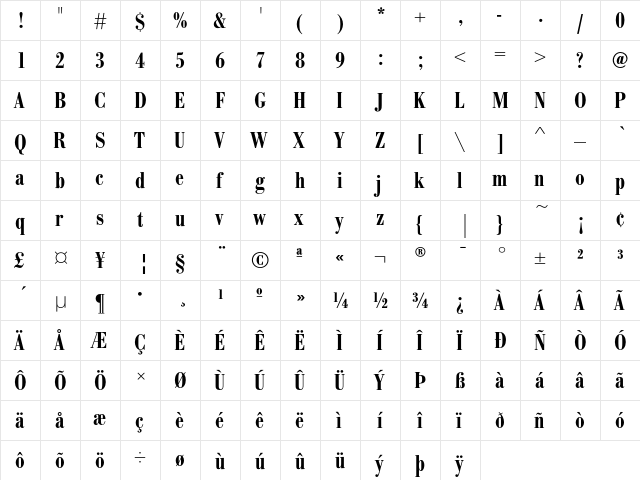
BodoniEF DemiBoldCond Font Preview
BodoniEF DemiBoldCond
Design Context for BodoniEF Typeface
BodoniEF takes a measured approach to typography — its balanced proportions and neutral character make it a reliable workhorse for both digital and print work. The heavy weight commands attention and anchors typographic hierarchies. Its narrow stance lets it pack a punch even in space-constrained designs.